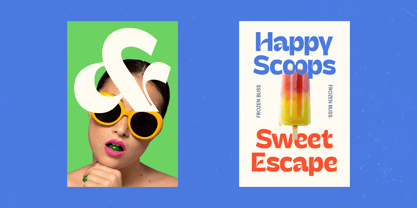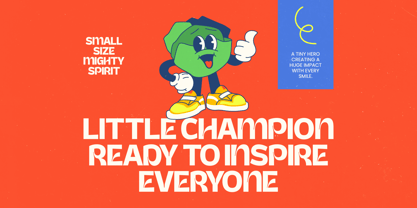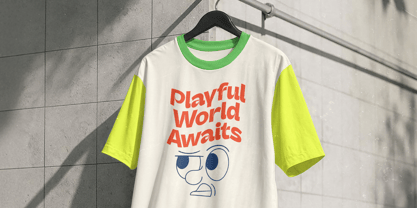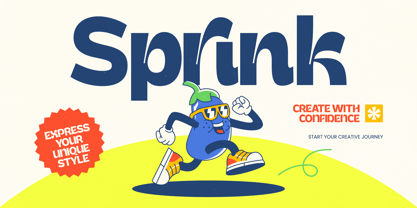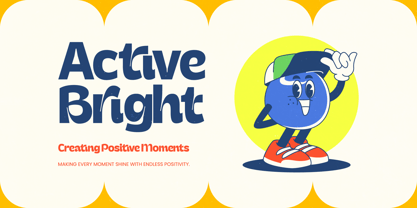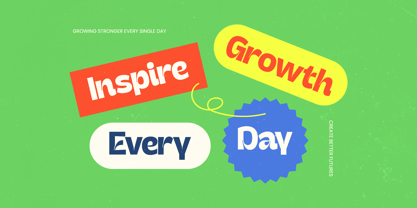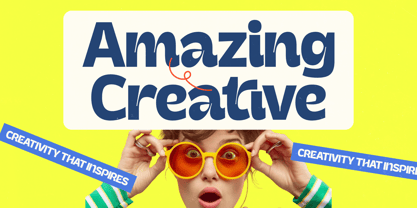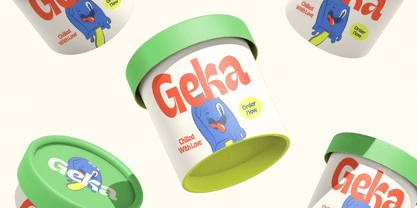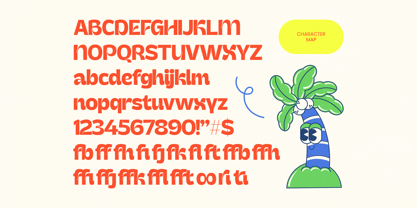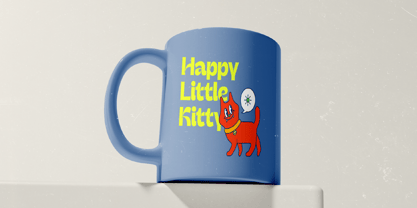
Sprink
A família de fontes Sprink foi desenhada por Heru Utama Putra e publicada pela Timelesstype Studio. Sprink contém 2 estilos e opções de pacote familiar. Saiba mais sobre esta família
Sobre a família
Meet Sprink, a vibrant and energetic powerhouse designed to jump off the page and grab immediate attention. This font isn't just a set of characters; it's a bold invitation to play and create something truly unforgettable.
Drawing inspiration from the bubbly energy of retro cartoons and the crisp lines of modern street art, the design captures a sense of joyful movement. It feels like a sunny day in a digital playground, where every curve tells a story of fun and spontaneity.
This typeface offers a unique twist on the modern serif display aesthetic by stripping away the feet while keeping the luxury typography weight intact. It provides a striking high-contrast serif vibe through its varying stroke widths, ensuring a massive branding impact for any high-end editorial font application.